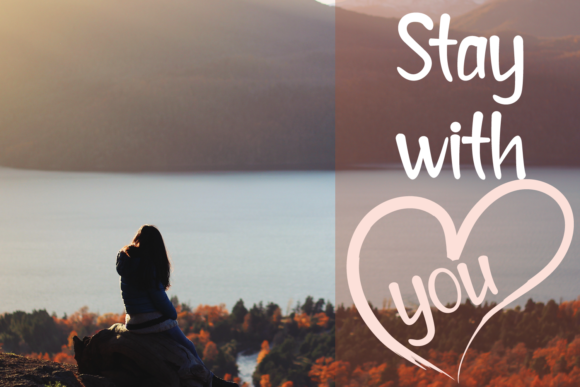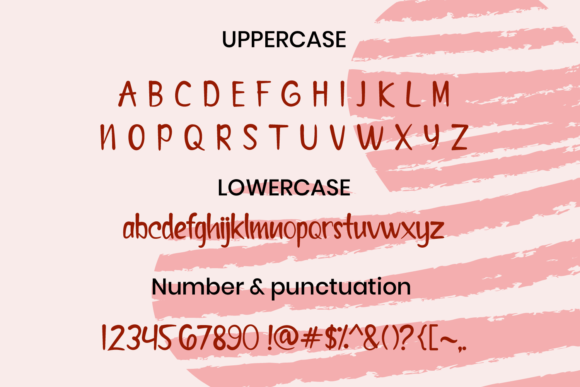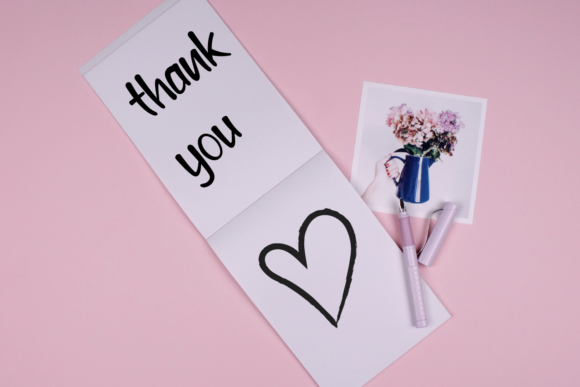
Maydina Font
About Maydina Font
Maydina is a sweet and a bit quirky handwritten font. Its natural and unique style makes it incredibly fitting to a large pool of designs. The only limit is your imagination!